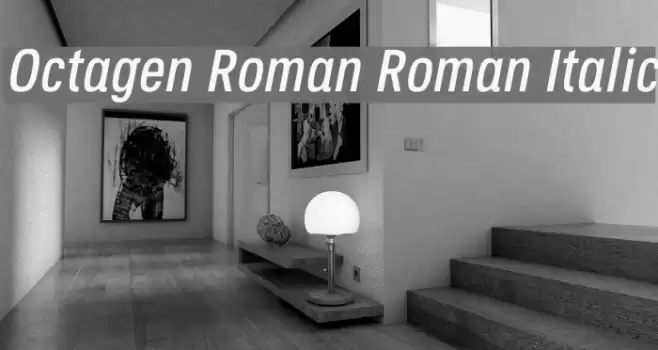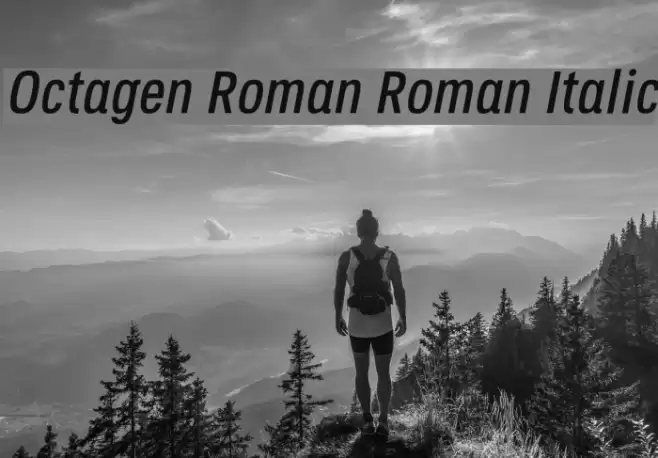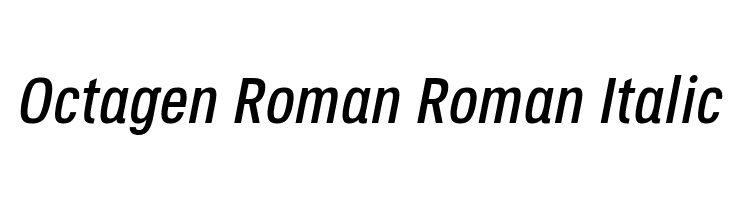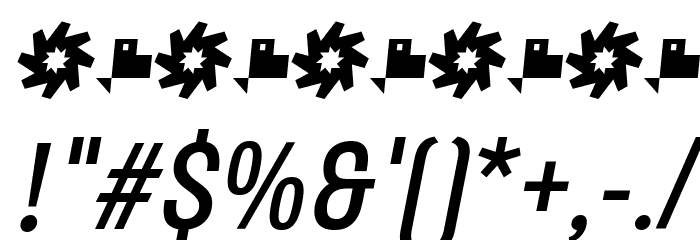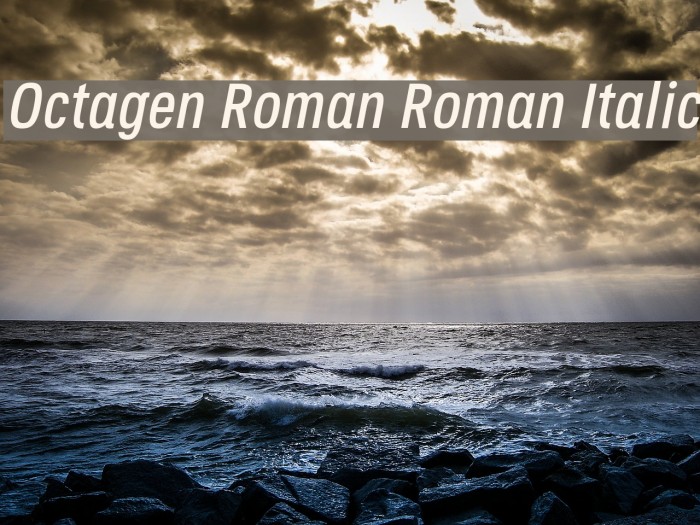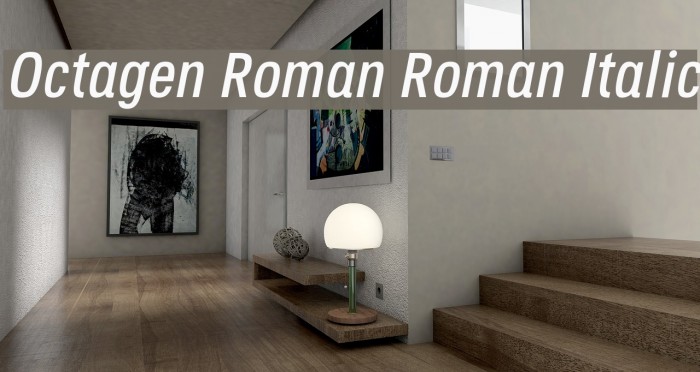
Octagen Roman Roman Italic Font
Octagen Roman Roman Italic Description
This font features a modern and sleek design with a slight italic slant, giving it a dynamic and forward-moving appearance. The characters are clean and well-defined, with a consistent stroke width that maintains readability. The uppercase and lowercase letters are proportionate, and the numbers are clearly distinguishable. Special characters are included, adding versatility for various uses. The overall look is professional and suitable for contemporary design projects.
A modern, italicized font with clean lines and consistent stroke width from Uncategorized fonts.
- Proposed Projects: Ideal for branding, advertising, and editorial design where a modern and dynamic look is desired.